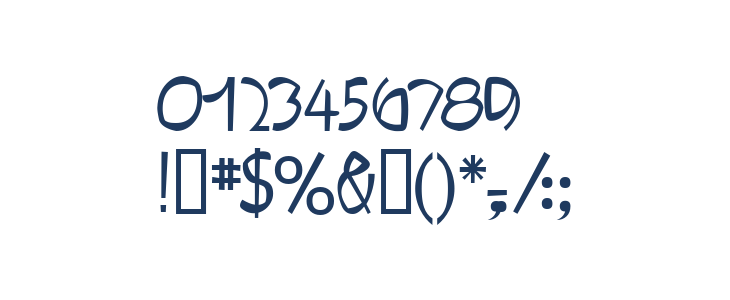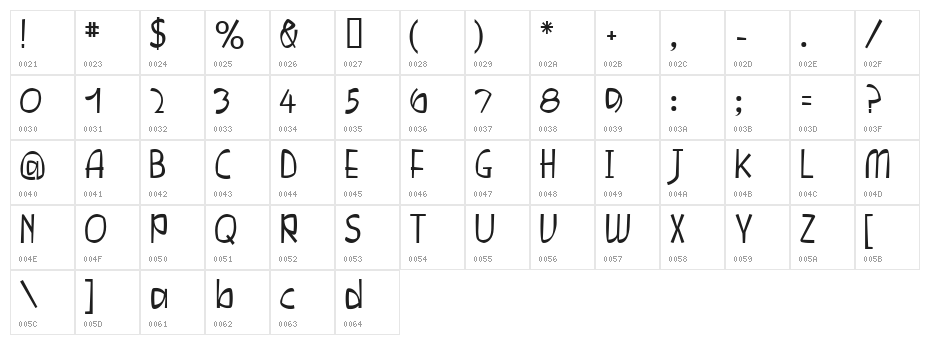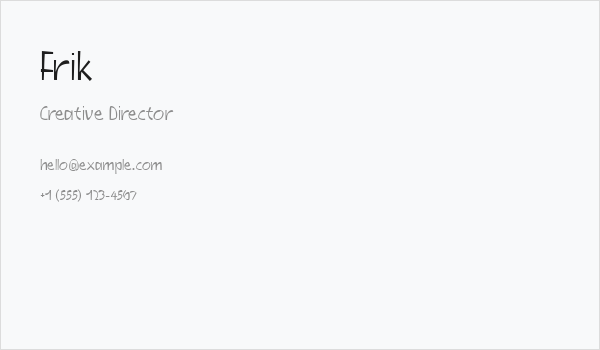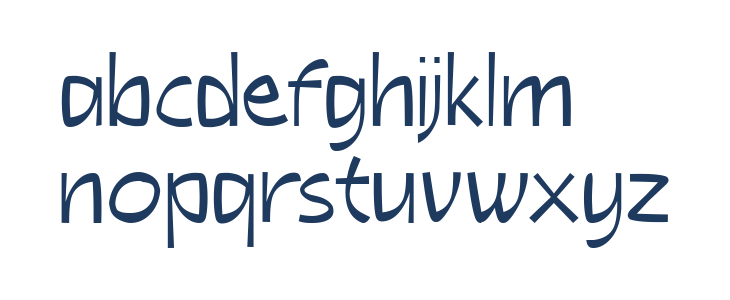
Frik Font
Frik Description
This font features a playful and modern design with a unique blend of geometric and organic shapes. The uppercase letters are bold and rounded, with a slight slant that adds a dynamic feel. The lowercase letters maintain a consistent style, with curved lines and open counters that enhance readability. Numbers are clear and distinct, matching the overall aesthetic. Special characters are creatively designed, maintaining the font's cohesive look. The font's overall appearance is both approachable and stylish, making it suitable for a variety of design applications.
| Proposed Projects | Ideal for branding, posters, children's books, and creative digital content. |